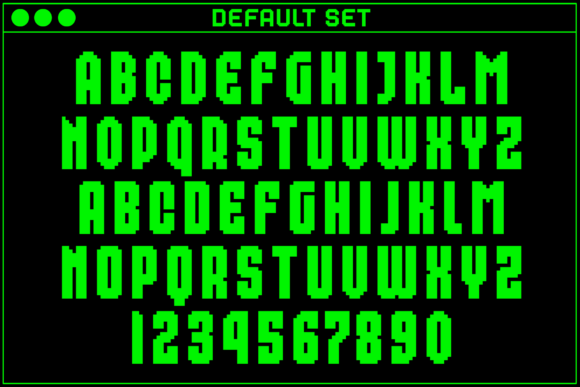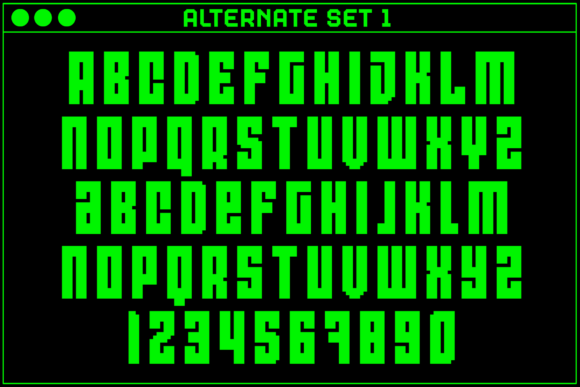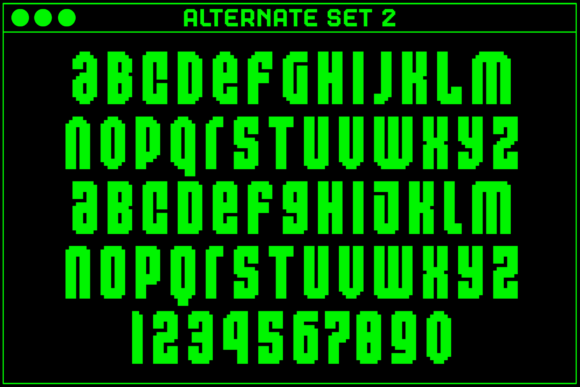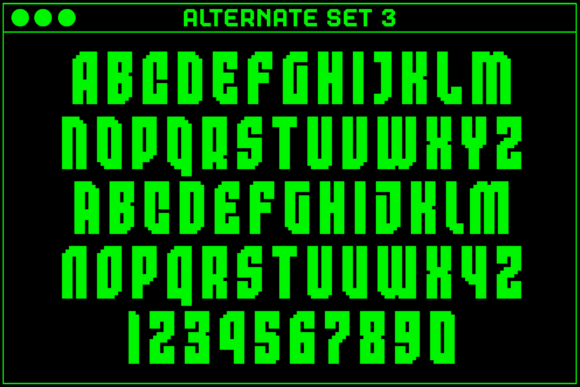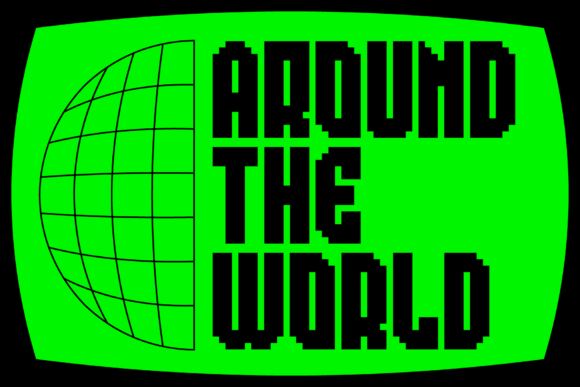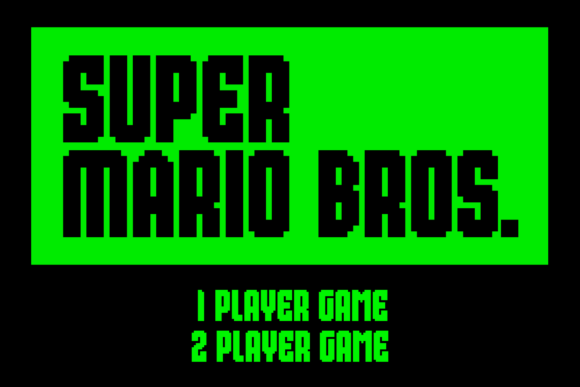
Introduction to MultiType Pixel Compact Font
Have you ever been stuck on a creative project, staring at a blank screen, desperately searching for the perfect font to bring your vision to life? We’ve all been there. But what if you could add a touch of edginess to your design with a font that’s as bold as it is unique?
Enter the MultiType Pixel Compact Font, a game-changing display font that’s sure to take your designs to the next level. With its cool, pixelated design and trendy feel, this font is the perfect addition to any creative project. Whether you’re working on a graphic novel, a video game, or a marketing campaign, the MultiType Pixel Compact Font is a valuable resource that will help you stand out from the crowd.
Key Features of MultiType Pixel Compact Font
- High-quality design resource ideal for creative projects, offering a unique and compact font style.
- Pixel-perfect design with a transparent background, making it easy to integrate into various design projects.
- Unique characteristics: MultiType Pixel Compact Font features a distinctive, minimalist design that is perfect for modern creative projects.
Honest Review: MultiType Pixel Compact Font
As a designer, I’m always on the lookout for high-quality design resources to elevate my creative projects. The MultiType Pixel Compact Font is one such resource that caught my attention. In this review, I’ll share my honest thoughts on this font.
What works well: ✨ The MultiType Pixel Compact Font has a clean, minimalist design that’s perfect for modern designs. It’s highly legible and comes in a range of weights, making it a versatile choice for various creative projects. I also appreciate that it’s a free download, which is a bonus for designers on a budget. The transparent background option is also a nice touch, allowing for easy integration with other design elements.
- Legible and versatile
Limitations: ⚠️ While the MultiType Pixel Compact Font is a great addition to any designer’s toolkit, it may not be suitable for all projects. The design is quite minimalist, which may not be suitable for designs that require a bolder, more dramatic look. Additionally, the font may not be as customizable as some other options.
Overall, I’m impressed with the MultiType Pixel Compact Font. It’s a high-quality design resource that’s perfect for modern designs. While it may have some limitations, it’s a great choice for designers looking for a clean, versatile font.
Common Use Cases for MultiType Pixel Compact Font
The MultiType Pixel Compact Font is suitable for a wide range of creative projects, including digital marketing materials, website design, and print materials. Use it to create a consistent and professional brand identity.